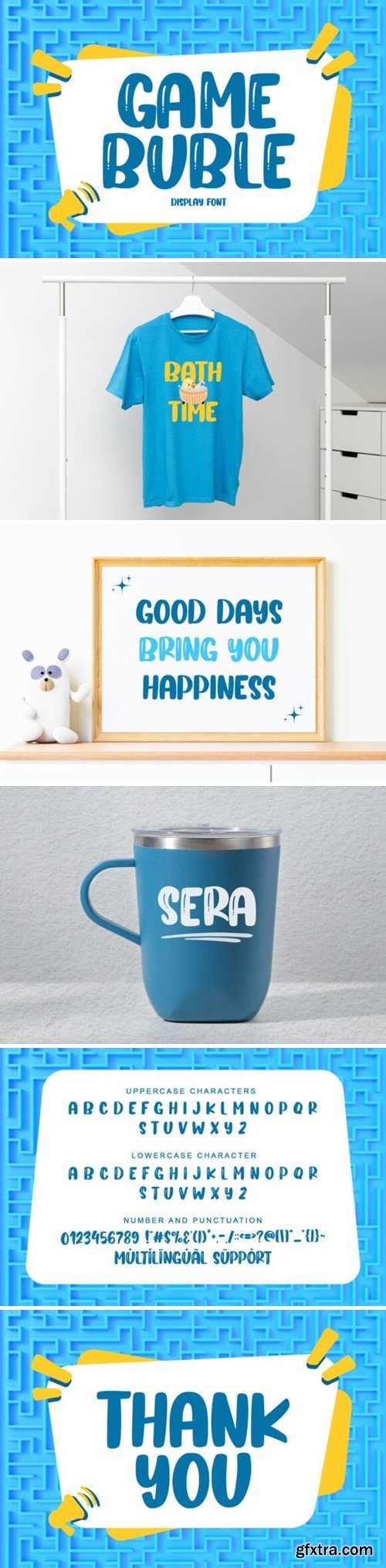
Game Buble is a playful display font with bold, rounded characters. Ideal for game titles, posters, and kids’ designs, its vibrant and fun style brings energy and excitement to any creative project.